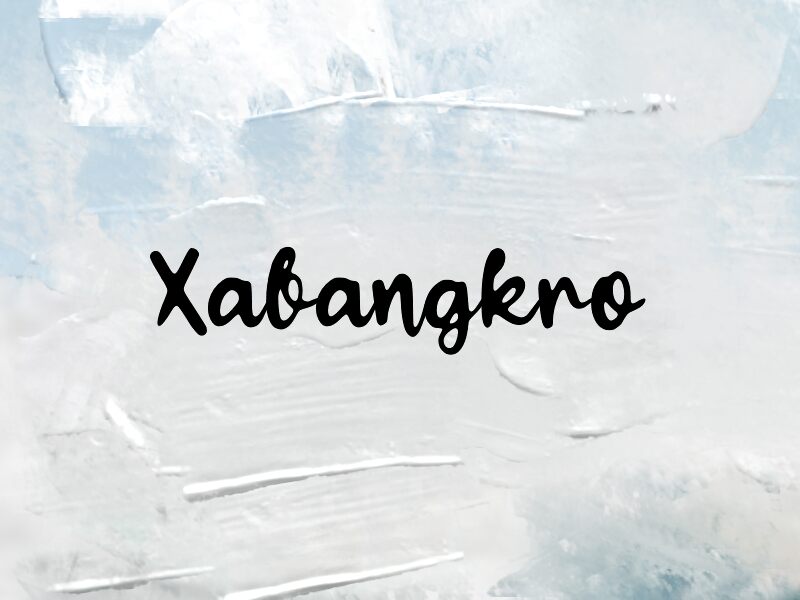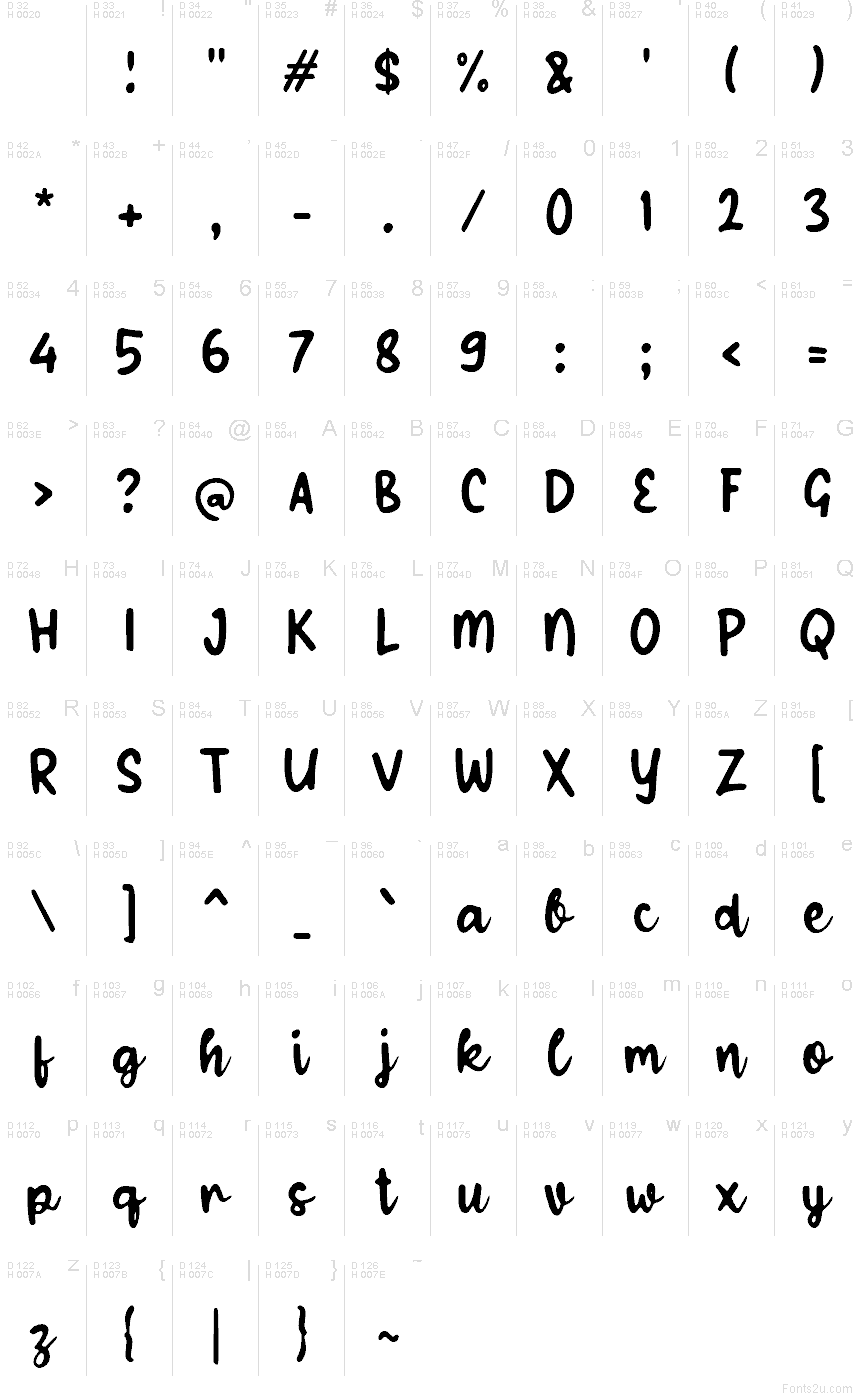
Xabangkro
Xabangkro font by wepfont.com is a free brush script font that gives you that hand-painted, marker-on-paper look without sacrificing clarity. Its rounded strokes are bold and inky, with just enough wobble and overlap to feel genuinely handwritten, not sterile or vector-perfect. The letters flow into each other in an easy rhythm, so you get expressive script headlines that still read cleanly at a glance.
Using Xabangkro, you can bring warmth and personality to social media graphics, quote posters, product packaging, café menus, event invitations, and playful branding. This free font shines when it’s set large, letting the thick, brushed curves show their texture; pair it with a simple sans serif for body text to keep layouts balanced and readable.